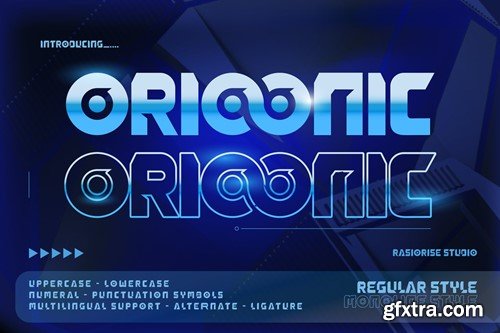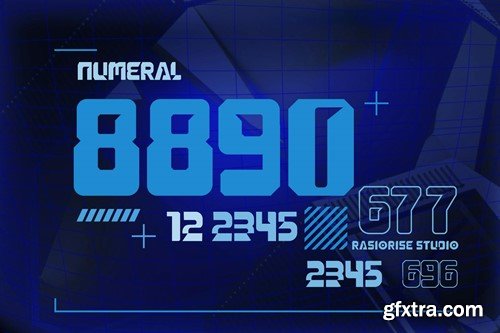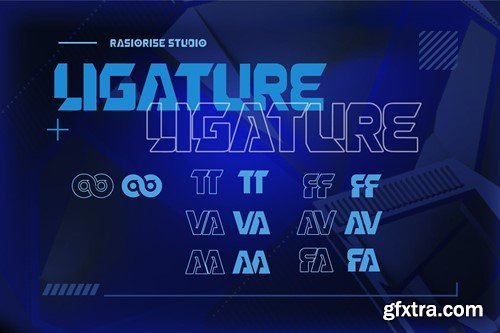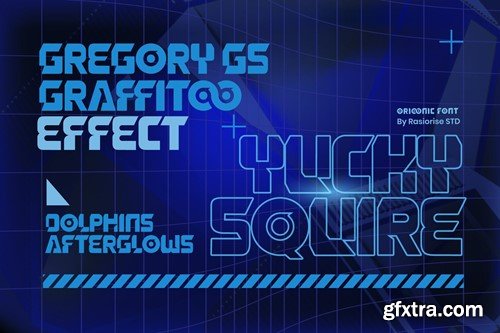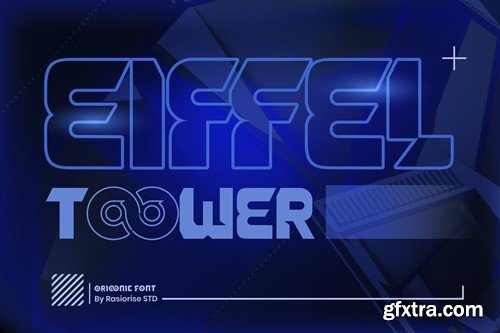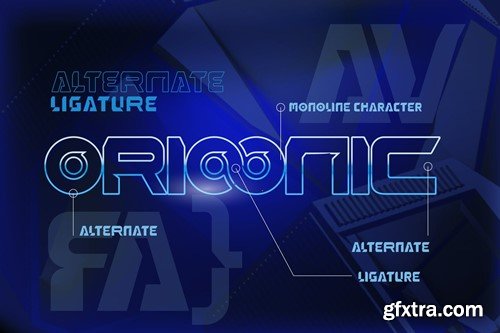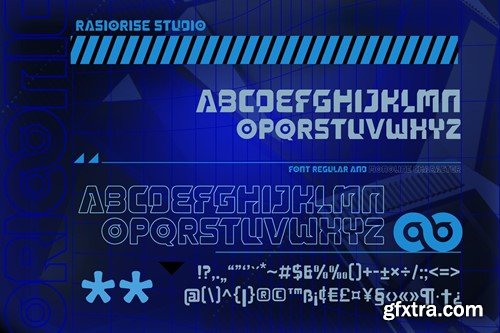
Orioonic - Y2K Futuristic Font F7ANDTY
Orioonic - Y2K Futuristic Font
Introducing Orioonic - Futuristic Y2k Font Decorative Font By Rasiorise Studio
Orioonic has been released for those of you who are looking for a Y2K Futuristic font, The font is inspired by the Space, Cyberpunk Futuristic Techno font style with a few combine to turn them into a bit hard line and bold including with Ligature and Alternate Regular font and Monoline Font Style.
FEATURES :
1. Uppercase and Lowercase
2. Numeral, Punctuation & Symbols
3. Multilingual Support